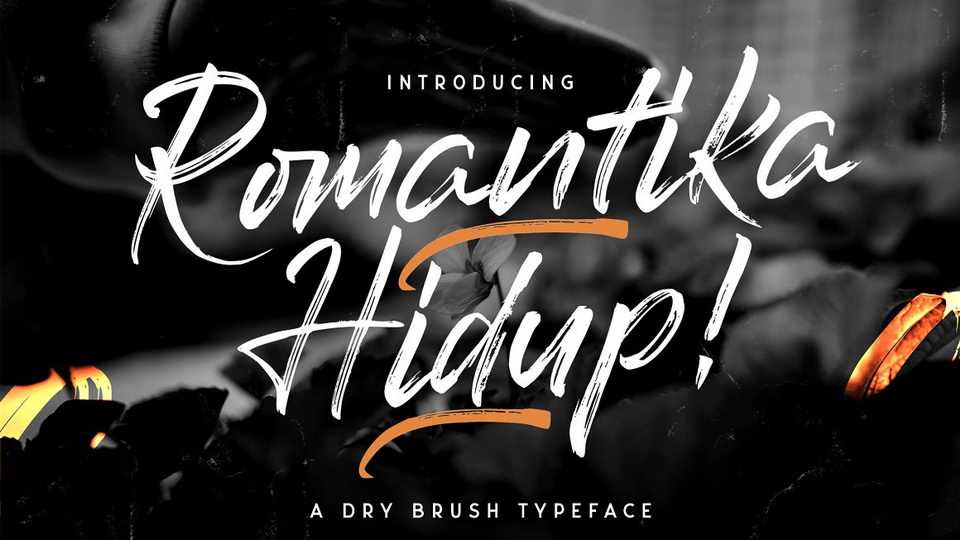
Download Romantika Hidup font, a flowing and dynamic handwritten typeface, created with the help of a brush pen. Its unique and beautiful style will be perfect for branding, posters, packaging, social media and other projects.